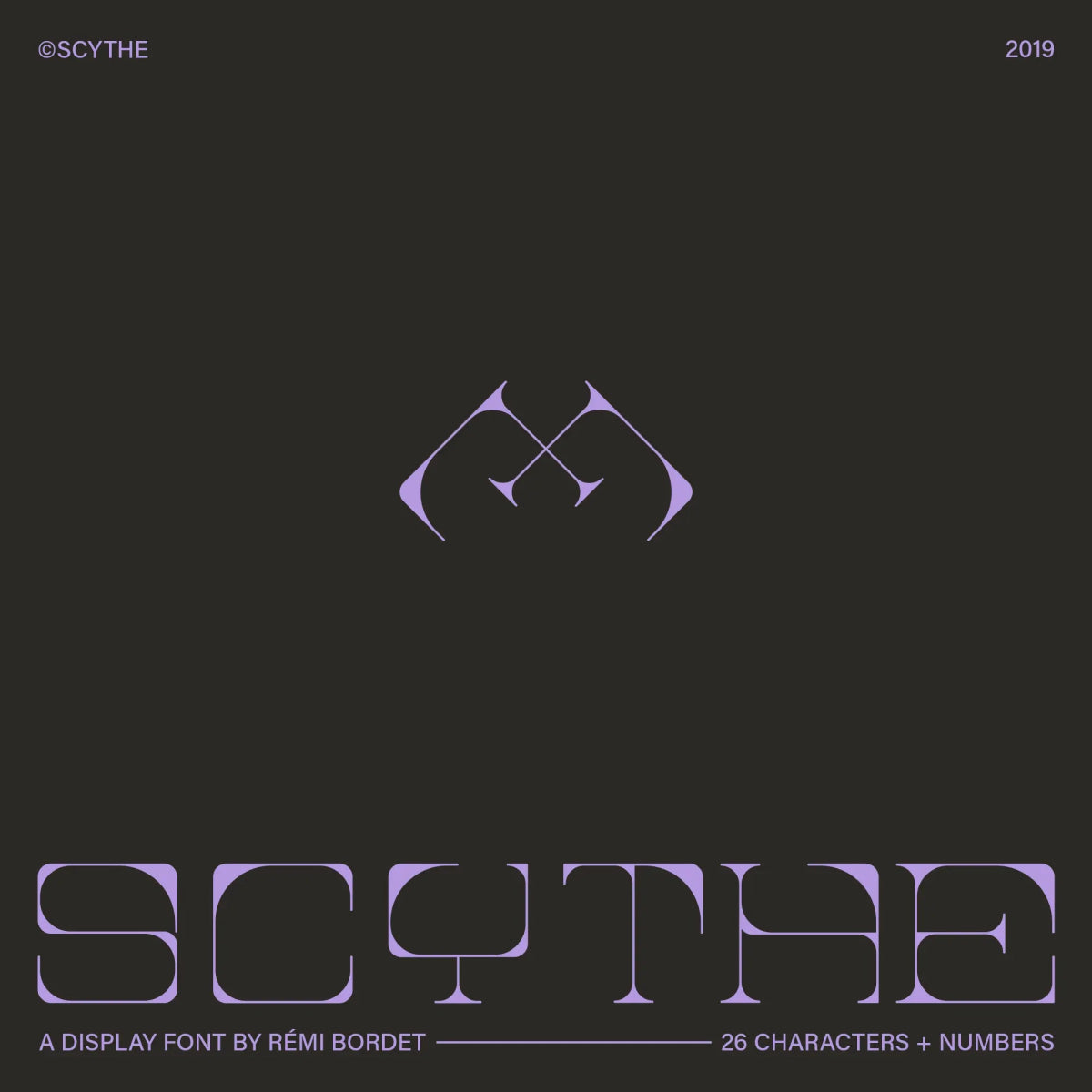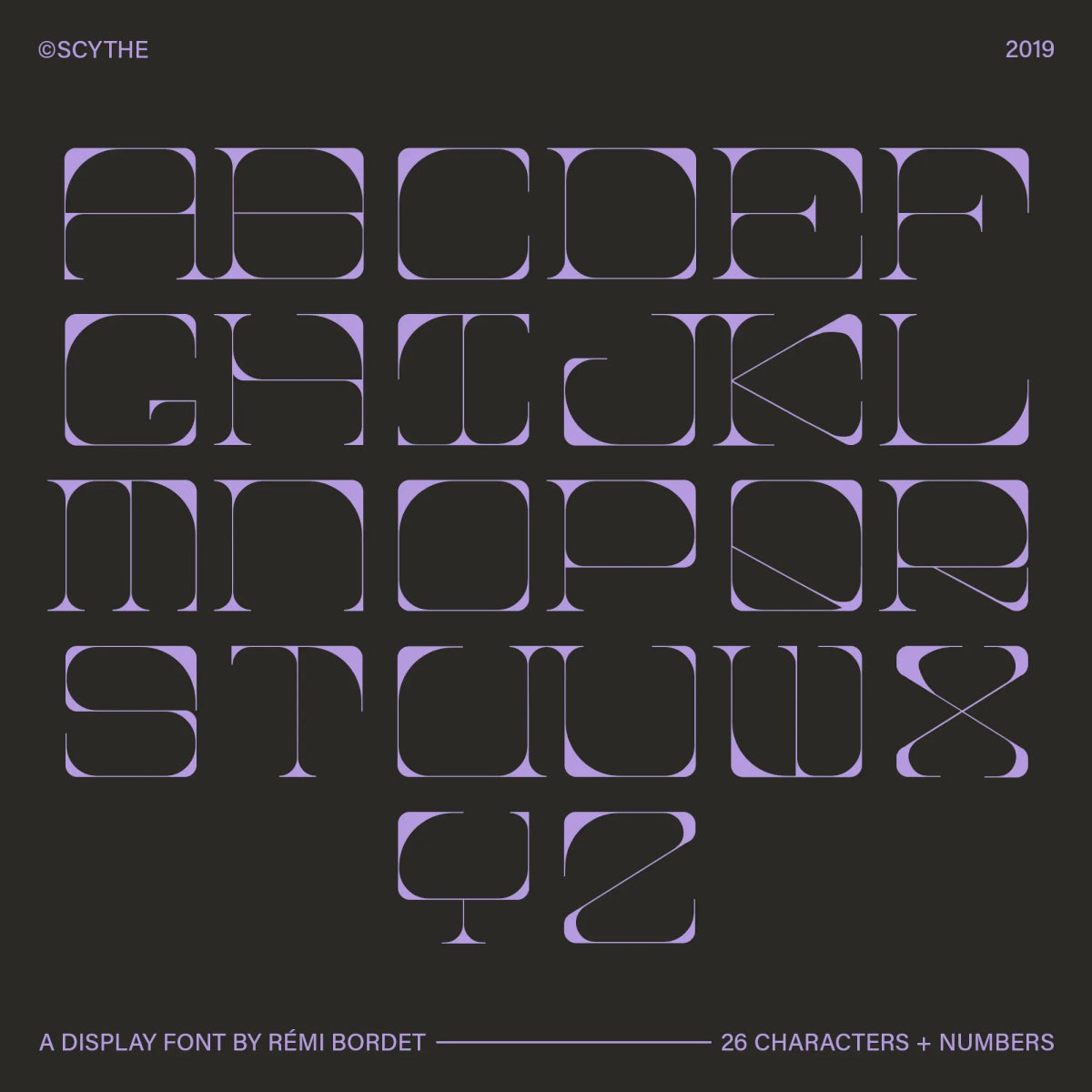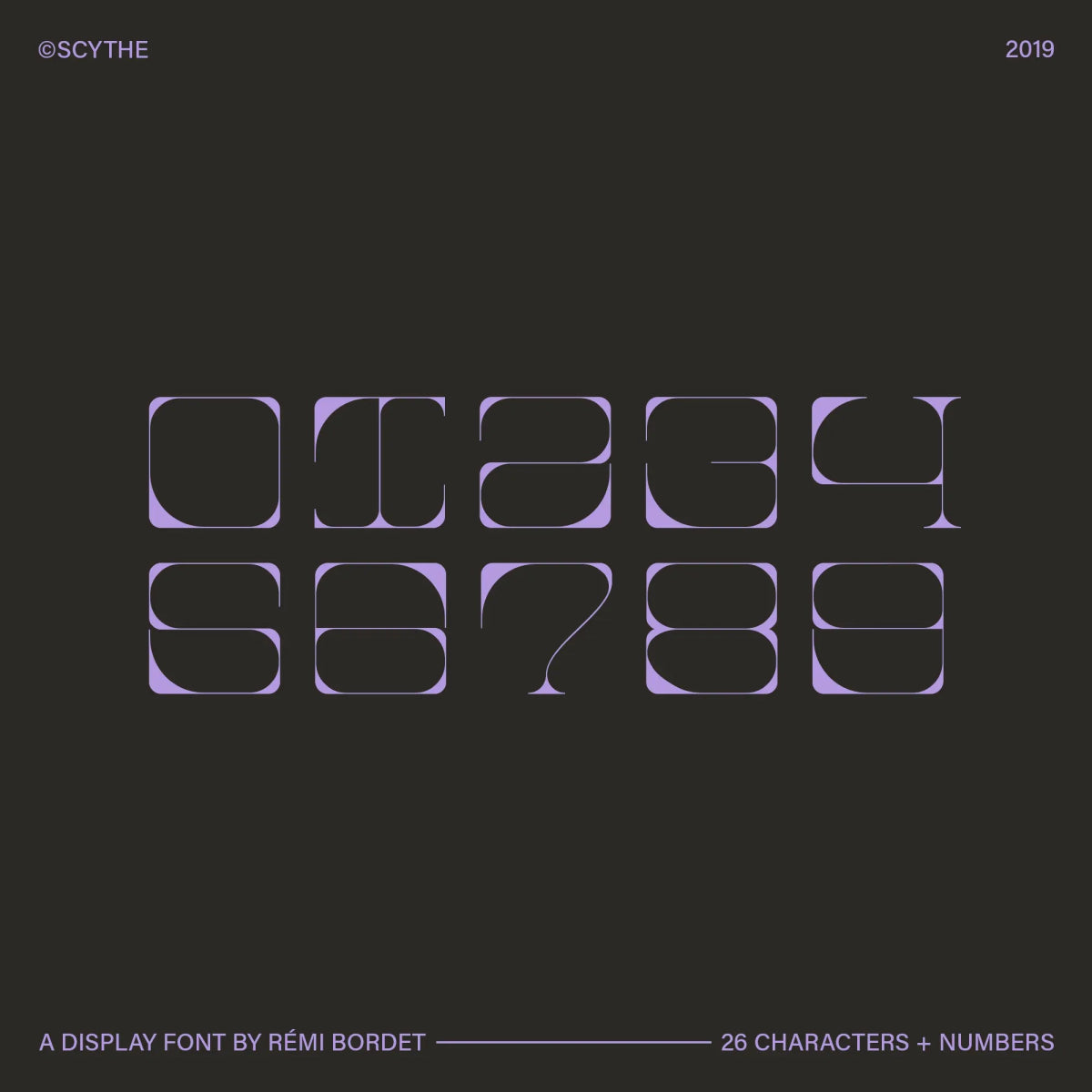
Scythe Display Font
by Rémi Bordet
Scythe is a sleek and unconventional display serif font that merges modular geometry with sculptural elegance. Its razor-sharp angles and enclosed forms create a futuristic, fashion-forward typeface perfect for avant-garde branding, posters, and editorial statements.
Font Features
• Full uppercase A-Z alphabet
• Full set of numbers 0-9
Rémi Bordet
Rémi Bordet is a french graphic and type designer and artist who creates bold, minimalist posters combining impactful imagery and typography. His work highlights contradictions, both aesthetically and symbolically speaking, through stylistic visual metaphors that blend brutalist aesthetics with emotional depth.